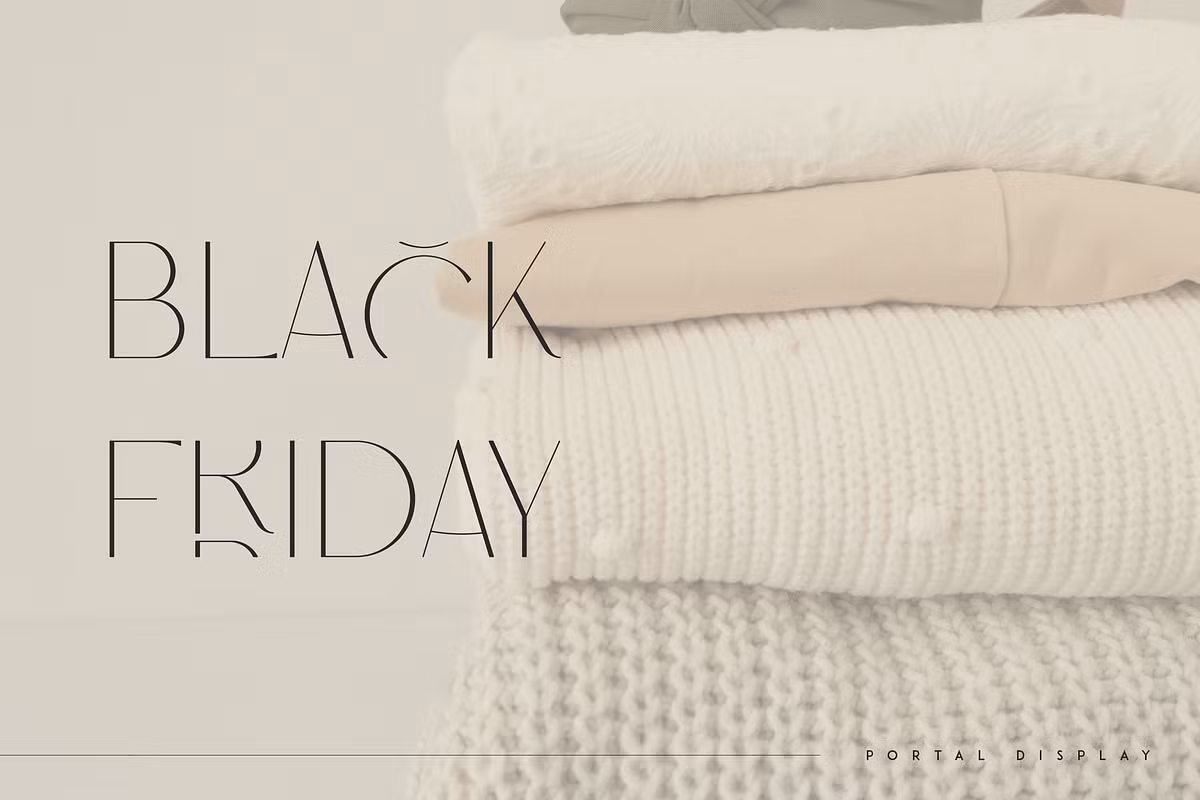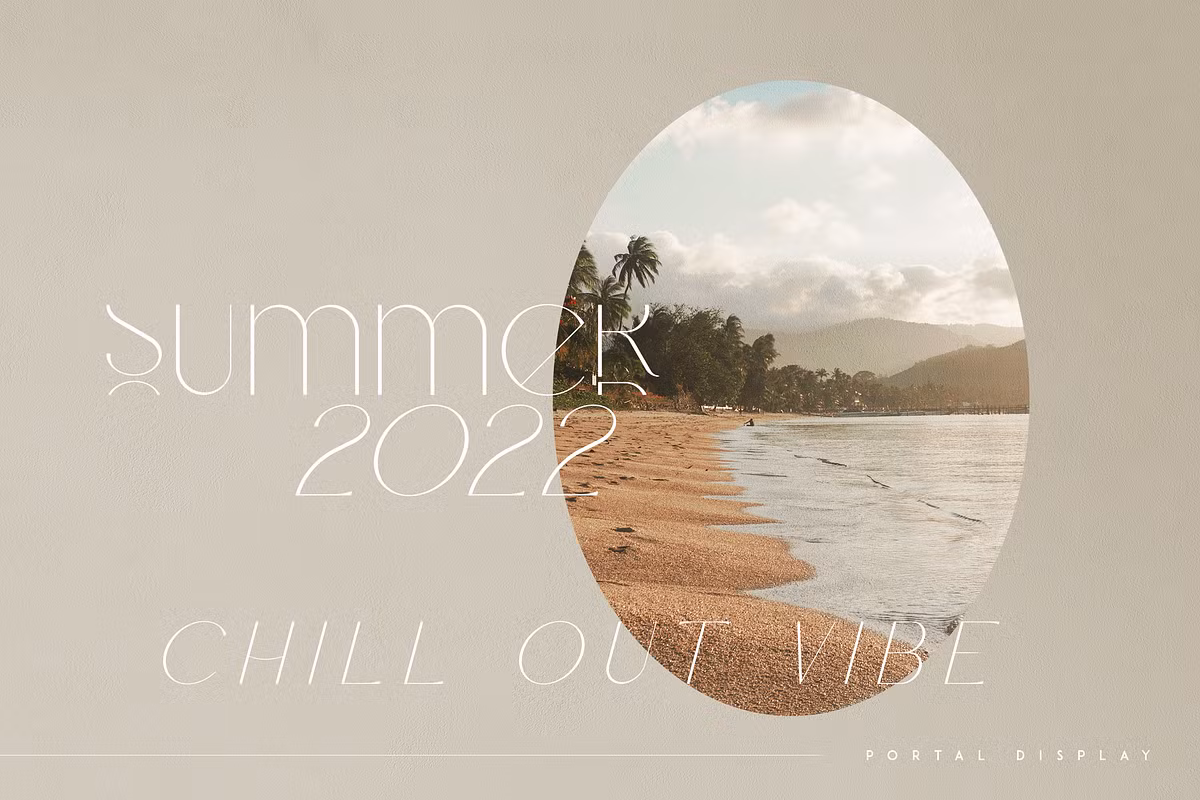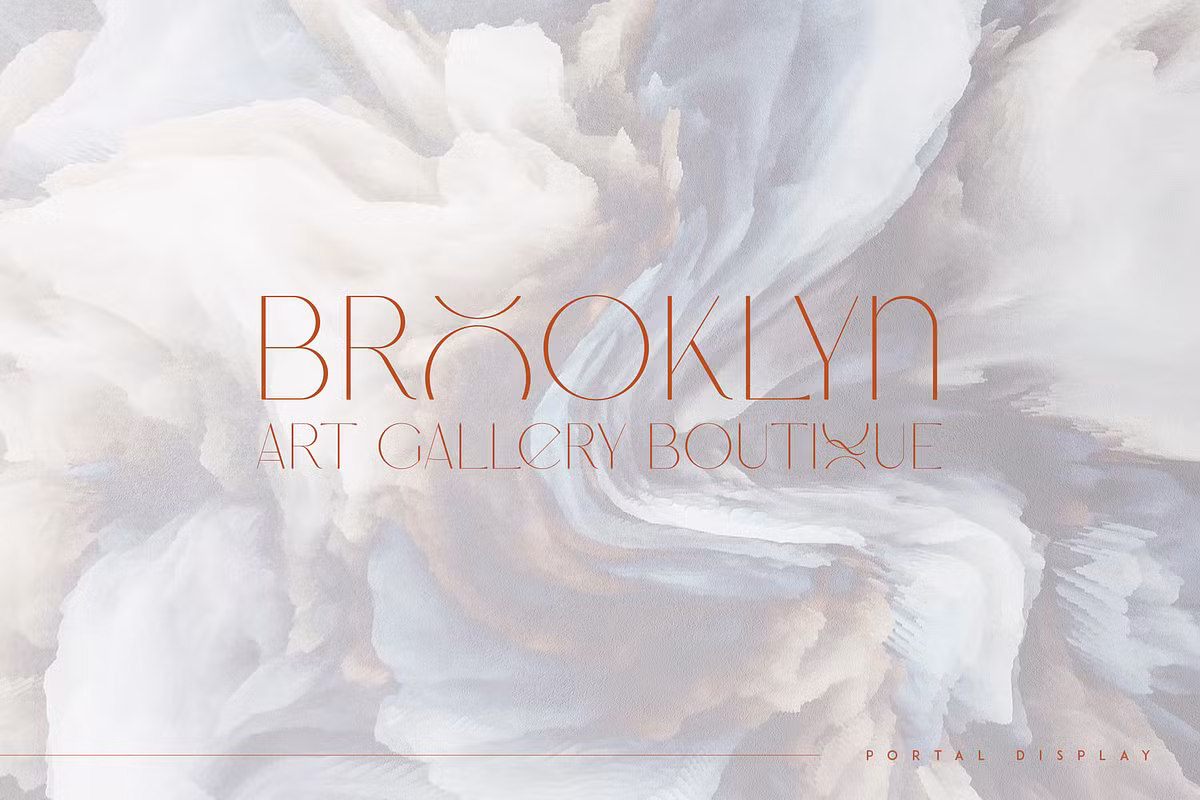
Introducing Portal: A Creative Display Typeface
Portal is a really cool font that works well for lots of different projects. It’s easy to read and looks great, whether you’re using it for a company’s brand, packaging, or headings in a magazine. You can use it for regular writing or italic, and it even works with lots of different languages. This means you can use it to communicate with people all over the world, without sacrificing style. Portal is a great choice because it’s versatile and sophisticated, making your text look good and function well. It’s perfect for designers who want to make their work stand out, and it’s easy to use in a variety of contexts. With Portal, you can create beautiful and effective designs that will grab people’s attention.
Design Style: Elegant Yet Versatile
The Portal design has a really simple and modern look that lots of people like. It’s got smooth lines and curves that make it easy to read, whether the text is big or small. This makes it perfect for things like headings and logos, where you want to grab people’s attention. The way it mixes uppercase letters and numbers is also really cool, and it’s great for making a bold statement with your brand. Plus, it’s versatile enough to work well in all sorts of situations, from big signs to small labels. Overall, the Portal design is a great choice if you want something that’s both stylish and easy to read.
Modern Aesthetic: Portal’s design reflects current design trends while remaining timeless. The font is easy to read, no matter how big or small it is, which makes it perfect for using in books, magazines, and on computers and phones.
Stylish Variations
The regular and italic styles offer flexibility for different design contexts, whether you need something bold or more subdued.
Character Sets: Comprehensive and Multilingual
Portal has a big collection of characters, including capital letters, numbers, punctuation, and symbols. This means you can make detailed designs and get your point across clearly. Plus, it works with many languages, so you can use Portal to create designs that people who speak different languages can understand. You can make things that appeal to lots of different people. The characters and language support make Portal a great tool for making designs that are both fancy and easy to understand.
Key Features of the Character Sets
- Uppercase Letters: Bold and striking, perfect for headlines.
- Numerals: Cleanly designed to integrate seamlessly into your text.
- Punctuation & Symbols: A full set to enhance your typography and ensure clarity in communication.
Use Cases: Ideal for Various Design Projects
Portal is a versatile typeface that can be utilized in numerous design projects. Its unique style makes it an excellent choice for:
- Branding Projects: Create a memorable brand identity with Portal’s elegant typeface that communicates professionalism and creativity.
- Home-Ware Designs: Use Portal for packaging or labels to add a touch of sophistication to your home products.
- Product Packaging: The typeface stands out on shelves, grabbing attention and enhancing the appeal of your products.
- Magazine Headers: Elevate your editorial designs with impactful headers that draw readers in.
- Text Overlays: Use Portal as a stylish text overlay against images, adding depth and context to your visuals.
Pairing Suggestions: Enhance Your Typography
When working with Portal, pairing it with other typefaces can enhance your overall design. Here are a few suggestions:
- Sans-serif Fonts: Pair Portal with a clean sans-serif font such as Open Sans or Lato for body text, allowing Portal to shine as the headline or focal point.
- Classic Look: Consider pairing it with a serif font, like Merriweather, for a timeless design.
- Handwritten Fonts: Combine Portal with a handwritten font like Pacifico or Dancing Script for a casual feel.
The Portal design is made to be easy to use and accessible to everyone. You don’t need any special programs to type out the regular characters of the font, which makes it simple for designers of all levels to use it in their projects. Plus, Portal works well with Canva, so you can easily add it to your online design work. This makes it a great choice for designers who want to create professional-looking projects without a lot of hassle. With Portal, you can focus on being creative and bringing your ideas to life, rather than worrying about complicated design software.
Conclusion: Elevate Your Design with Portal
Portal is more than just a font – it’s a way to unlock your creativity and bring your designs to life. Its classic look, wide range of characters, and ability to work well in many different contexts make it a great choice for anyone looking to add something special to their projects, whether they’re for print or digital. So why not give Portal a try and see how it can take your next design to the next level? With Portal, you can add a unique touch to your work and stand out from the crowd. It’s the perfect tool for anyone who wants to create something truly special. Whether you’re working on a project for fun or for a client, Portal is sure to help you achieve your goals and create something you can be proud of. So go ahead, get creative with Portal and see what amazing things you can design!